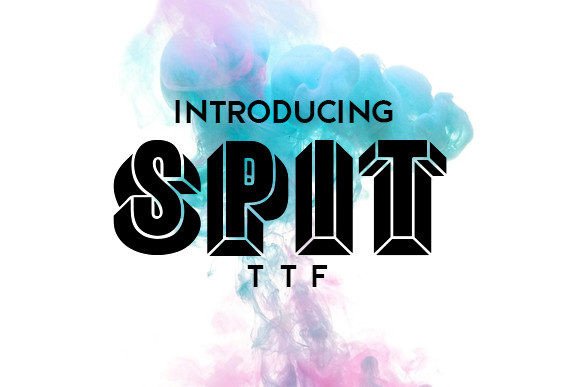
Introducing Spit Font: The Unique 3D Typeface for Your Designs
In the world of graphic design, fonts play a crucial role in conveying messages and capturing attention. With the numerous font options available, it can be challenging to find the perfect one that stands out from the crowd. However, if you’re looking for a font that adds a touch of edginess and uniqueness to your designs, look no further than Spit Font. In this article, we’ll explore the features and benefits of Spit Font, and how it can elevate your designs to the next level.
What is Spit Font?
Spit Font is a distinctive 3D typeface designed to add a bold and eye-catching element to your designs. Its unique texture and rugged appearance make it perfect for creating striking visuals that grab attention. Whether you’re working on a flyer, t-shirt, or banner, Spit Font is an excellent choice to make your design stand out.
Key Features of Spit Font
- Unique 3D Appearance: Spit Font boasts a one-of-a-kind 3D design that adds depth and dimension to your text.
- High-Quality Texture: The font features a high-quality texture that gives it a rugged and edgy look.
- Versatile: Spit Font can be used on various design materials, including flyers, t-shirts, banners, and more.
Benefits of Using Spit Font
So, why choose Spit Font for your designs? Here are some benefits that make it an excellent addition to your font collection:
- Adds Visual Interest: Spit Font’s unique 3D appearance and texture add visual interest to your designs, making them more engaging and attention-grabbing.
- Enhances Brand Identity: Using a distinctive font like Spit Font can help establish a strong brand identity and differentiate your brand from others.
- Increases Versatility: With Spit Font, you can create a wide range of designs, from bold and edgy to modern and sleek.
- Perfect for Promotional Materials: The font is ideal for creating promotional materials like flyers, t-shirts, and banners that require eye-catching typography.
In conclusion, Spit Font is a unique and versatile 3D typeface that can elevate your designs to the next level. Its bold and eye-catching appearance makes it perfect for creating striking visuals that grab attention. With its ease of use and high-quality texture, Spit Font is an excellent addition to any designer’s font collection. So, why settle for ordinary fonts when you can add a touch of edginess to your designs with Spit Font?